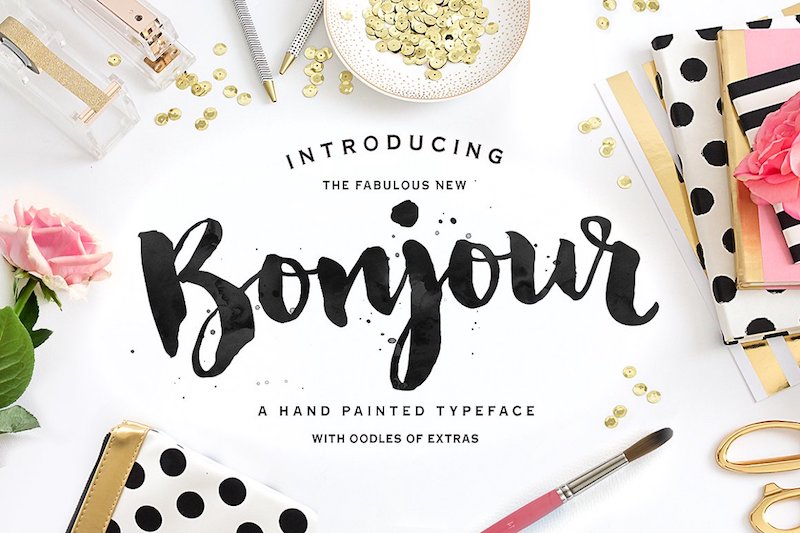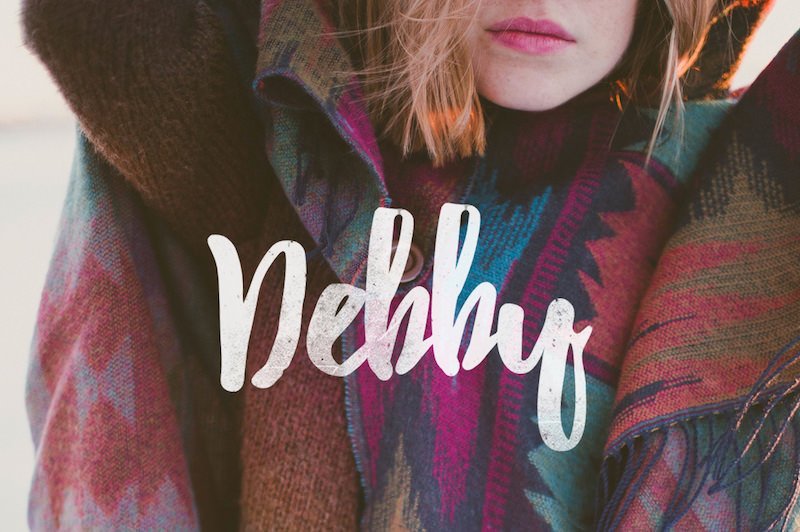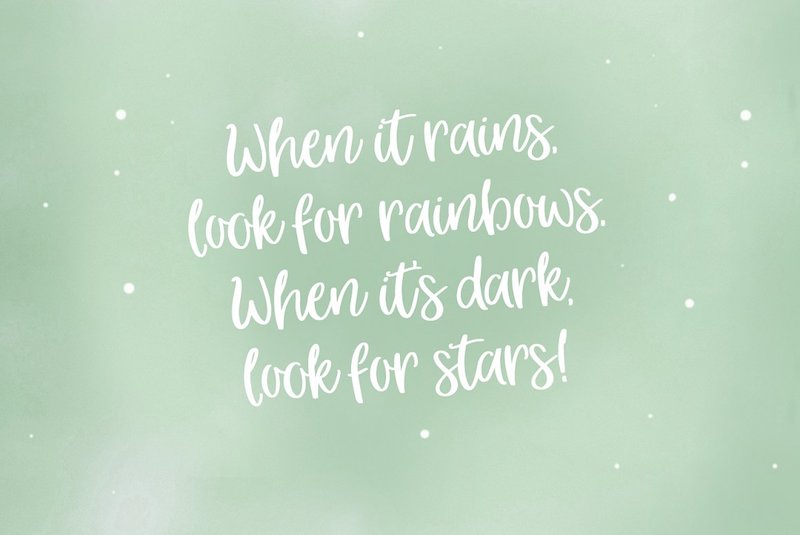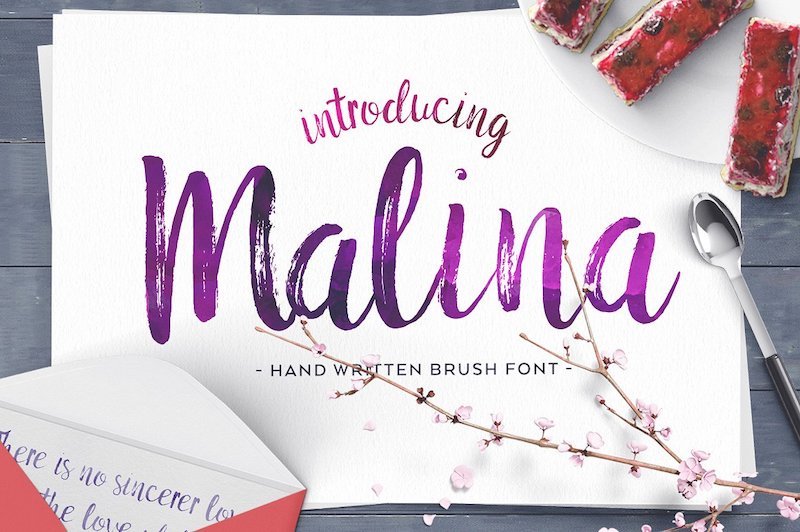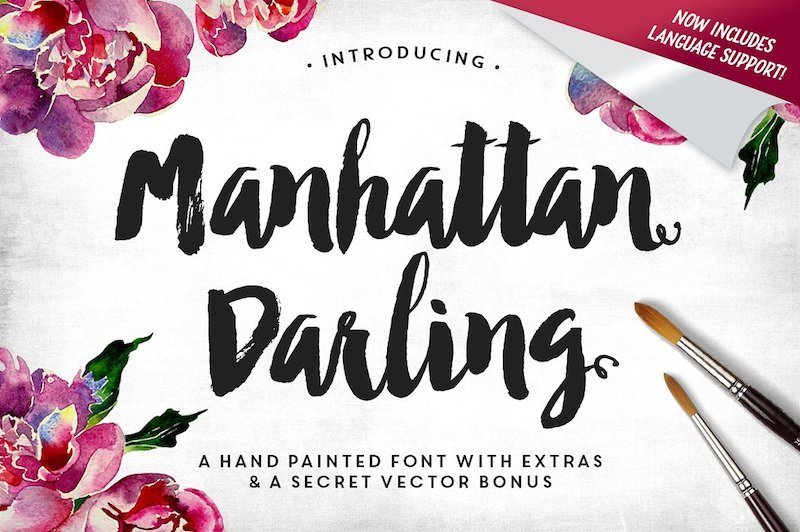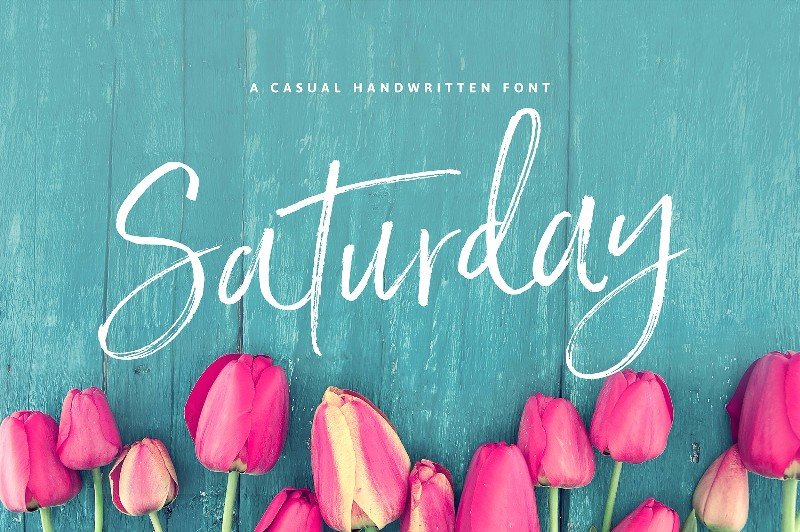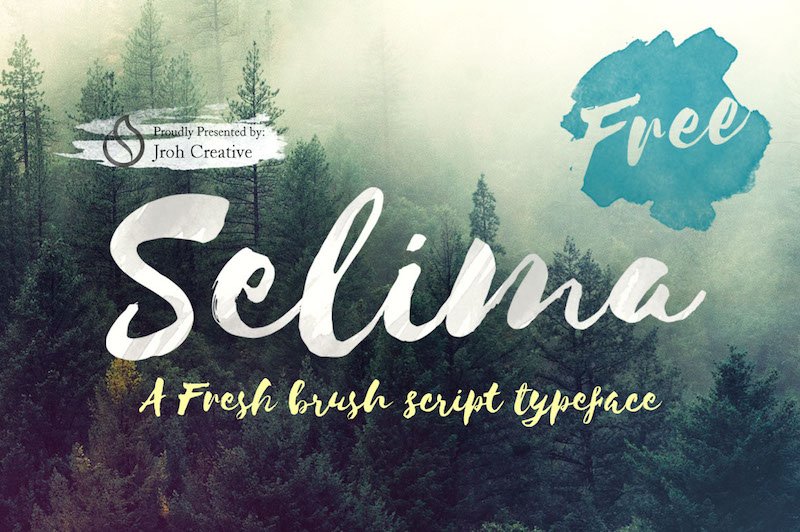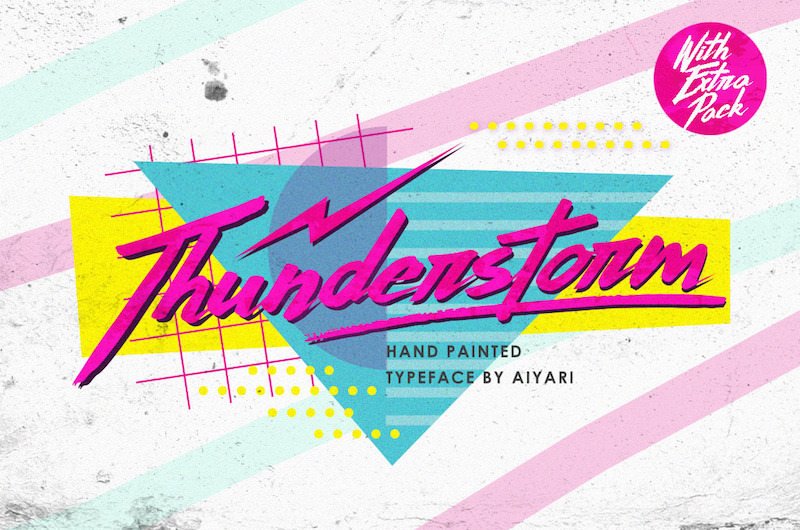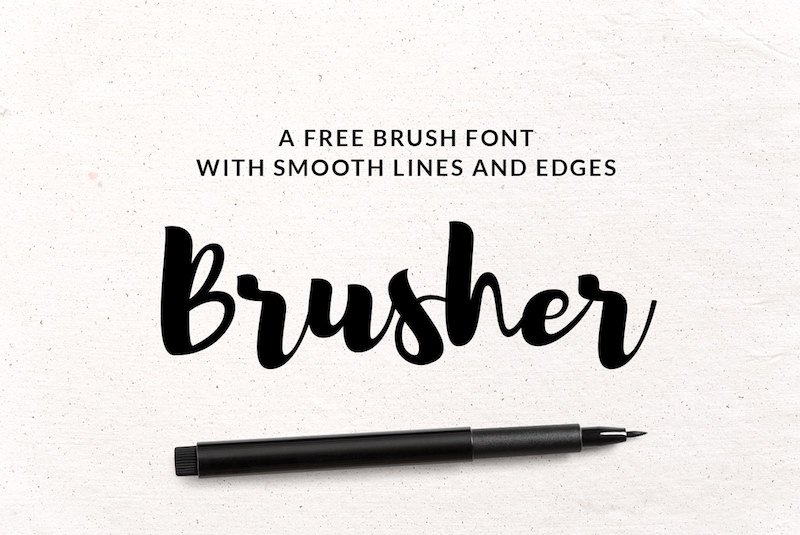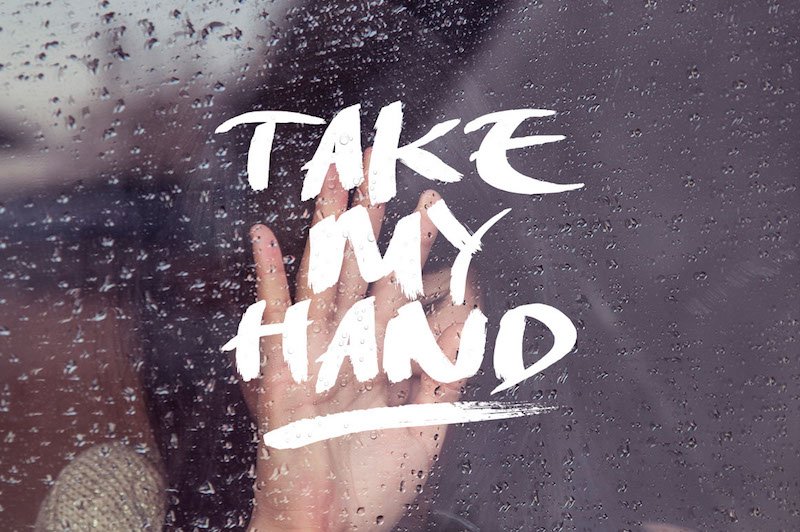
Best free Brush Fonts for designers
Brush fonts emulate the fluid strokes of a paintbrush or ink pen, giving typography a handcrafted, artistic feel. Their natural imperfections and expressive variations make them perfect for adding energy, personality, and texture to your designs.
These fonts are widely used in branding, packaging, clothing graphics, posters, social media visuals, and creative headlines, where a unique, human touch can make all the difference. Unlike clean geometric typefaces, brush fonts add vibrancy and individuality, helping your design stand out.
• They bring a personal, handcrafted look to digital projects.
• Perfect for eye-catching posters, apparel design, product packaging, and branding.
• Add a sense of motion and artistic flair.
• Suitable for both modern and retro-inspired compositions.
📌 In this post, we’ve curated a collection of the best free brush fonts, along with some premium options for professional use. You’ll find:
• Bold brush fonts with thick strokes for impactful headlines.
• Casual handwritten styles for a friendly, approachable feel.
• Textured brush fonts with rough edges for a raw, authentic look.
• Elegant script-like brush fonts for stylish branding and invitations.
Whether you’re designing a logo, poster, t-shirt, or social media campaign, these free brush fonts will help you achieve a creative, handcrafted aesthetic that connects with your audience.
1. Leafy — Handwritten Brush Font with a Natural Feel
Leafy is a handwritten uppercase brush font designed by Ieva Mezule and Krisjanis Mezulis. This unique typeface includes 95 characters and offers an organic, hand-crafted appearance that stands out in any creative project.
With its fine texture and irregular strokes, Leafy is perfect for those looking to add a personal, artistic touch to their typography. Whether you’re working on branding, posters, packaging, or editorial design, this font delivers a natural and expressive look.
2. Salted Mocha — Hand-Drawn Brush Font by Stephanie Arsenault
Salted Mocha, a hand-drawn font by Stephanie Arsenault, features rough edges and authentic brush strokes. Its lively baseline and looping swashes give the typeface a playful and charming appearance.
3. Summer Hearts — Free Hand-Drawn Brush Font by Jeremy Vessey
Summer Hearts is a free, hand-drawn brush font created by type designer Jeremy Vessey. This all-caps font uses lowercase letters as stylistic variations of the uppercase characters.
Designed primarily as a display font, Summer Hearts is perfect for headlines, titles, posters, branding, and more. The font is available in OTF format.
4. Macbeth — Free Hand-Drawn Color OpenType SVG Font by Oghi Novianto
Macbeth is a free, hand-drawn color font in OpenType SVG format, created by Oghi Novianto. Utilizing the latest OpenType-SVG technology, this font preserves the high-resolution brush details of the original handwritten characters.
With its energetic and aggressive style, Macbeth is perfect for display use, movie titles, album covers, and more.
5. Brux — Stylish All-Caps Stencil Brush Font by Marcelo Reis Melo
Brux is a stylish all-caps brush font with a consistent weight and a stencil design, featuring vertical, rigid strokes that set it apart from typical brush fonts. This typeface supports Swedish, German, and Spanish characters, making it versatile for international use.
Created by art director Marcelo Reis Melo, Brux is available for free download in TTF, OTF, and Webfont formats.
6. Debby — Beautiful Handwritten Brush Font by Artimasa Studio
Debby is a beautiful, handcrafted brush font featuring bouncy letterforms with rough edges, giving your text an authentic, hand-drawn appearance. It’s perfect for use in greeting cards, invitations, quote posters, and logo design.
7. Brusher — Bold and Modern Brush Font by Vlad Kristea and Raul Tacheu
Brusher is a bold, contemporary brush font designed by Vlad Kristea and Raul Tacheu. It features 100 glyphs, including uppercase and lowercase letters, numbers, symbols, and punctuation, all crafted with precise and smooth brush strokes.